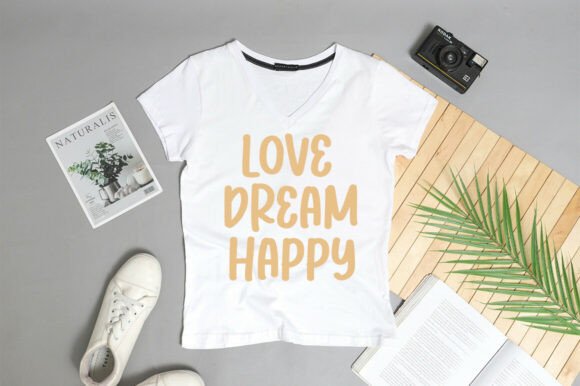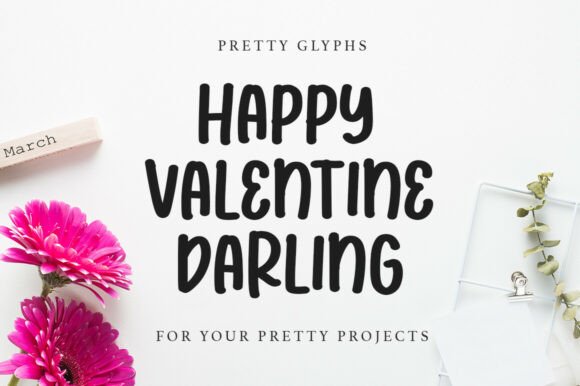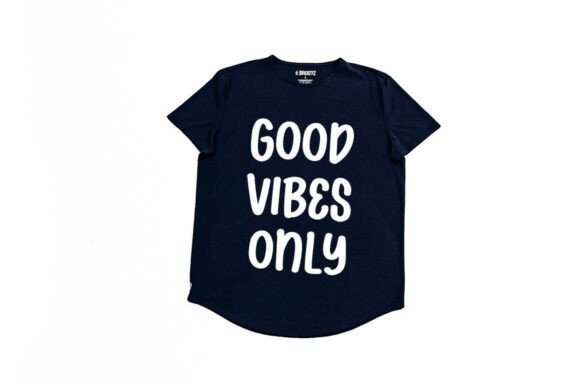
Unlocking Creative Freedom: The Allure of Casual Brush Font
In the realm of typography, few fonts manage to capture the essence of both modern sophistication and carefree nonchalance as effortlessly as the Casual Brush Font. This exquisitely hand-sketched brush font is a game-changer for creatives looking to infuse their designs with a dynamic, artistic vibe that commands attention while exuding a sense of relaxed elegance.
The Artistry of Casual Brush Font
What sets Casual Brush Font apart is its roots in genuine brush lettering. Every character is a testament to the fluidity and expressiveness of hand-drawn typography, meticulously crafted to ensure that each letter, number, and punctuation mark dances off the canvas with a unique energy. The organically shaped strokes are not just visually appealing; they bring a level of authenticity and warmth to any design, making it instantly more relatable and engaging.
Handcrafted Textures for a Unique Touch
One of the defining features of Casual Brush Font is its handcrafted textures. These are not merely added as an afterthought; instead, they are integral to the font’s design, providing a tactile quality that elevates the aesthetic of any project. Whether you’re working on branding, social content, or any form of visual communication, this font ensures that your message is not just seen but felt. The textures add a layer of depth and realism, making the digital content appear more organic and less sterile.
Striking the Perfect Balance
For creatives, the challenge often lies in striking the right balance between contemporary chic and a more laid-back, casual feel. Casual Brush Font emerges as the perfect solution, blending modern design sensibilities with a nonchalant freedom that is hard to achieve with more traditional fonts. This balance is crucial in today’s design landscape, where standing out is key, yet maintaining a level of sophistication and approachability is equally important.
Elevate Your Design Aesthetic
Incorporating Casual Brush Font into your design workflow is a straightforward way to elevate your aesthetic. Its dramatically eye-catching appearance and teeming artistic vigor make it an invaluable asset for anyone looking to lend a bold, creative, and enduring touch to their work. Whether you’re designing for digital platforms or print, this font serves as a versatile tool that adapts seamlessly across different mediums.
Broadening Your Creative Horizons
With Casual Brush Font, the possibilities are vast. It’s not just a font; it’s a creative partner that helps you broadcast your message with confidence and artistic flair. The font’s ability to make your branding or social content more sure-footed, more art-centric, and wholly memorable is invaluable in a crowded digital landscape. It opens up new avenues for expressing your unique voice and style, allowing you to connect with your audience on a more personal level.
Practical Applications for Designers and Crafters
So, how can designers and crafters make the most of Casual Brush Font? Here are a few ideas:
- Branding: Use it to create a unique logo or wordmark that captures the essence of your brand.
- Social Media Content: Elevate your posts and stories with a font that demands attention and resonates with your audience.
- Packaging Design: Add a personal touch to your product packaging with labels and descriptions that stand out.
- Web Design: Enhance user experience with a font that adds character and personality to your website.
Casual Brush Font is more than just a typography; it’s a creative statement. It embodies the perfect blend of modernity and casual charm, making it an indispensable tool for designers and crafters aiming to leave a lasting impression. With its hand-sketched elegance, handcrafted textures, and versatile application, this font is poised to transform your designs, bringing them to life with a dynamism and artistic vigor that’s hard to achieve with standard fonts. Embrace Casual Brush Font, and let its unique character breathe new life into your creative projects.